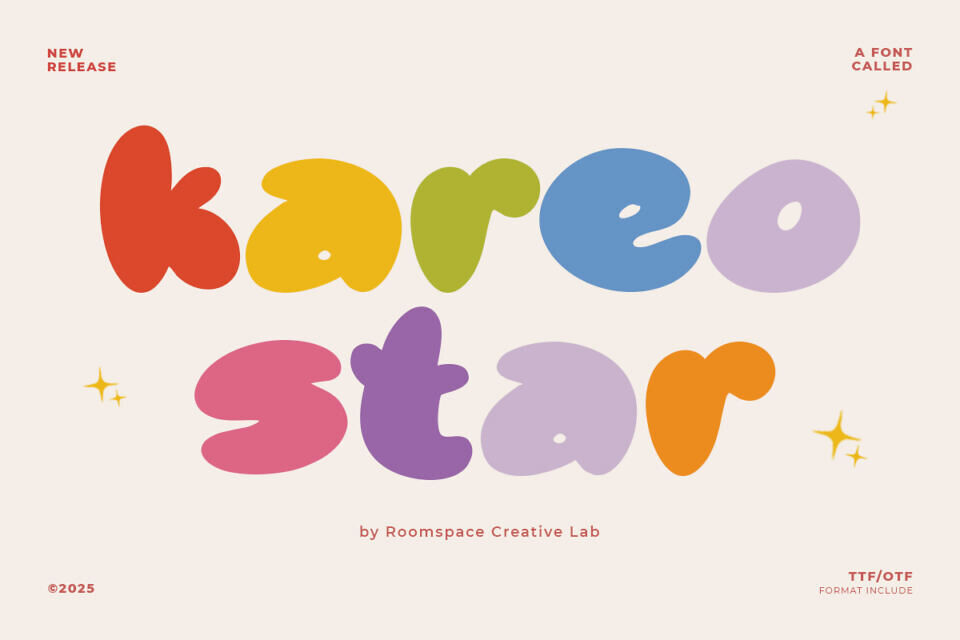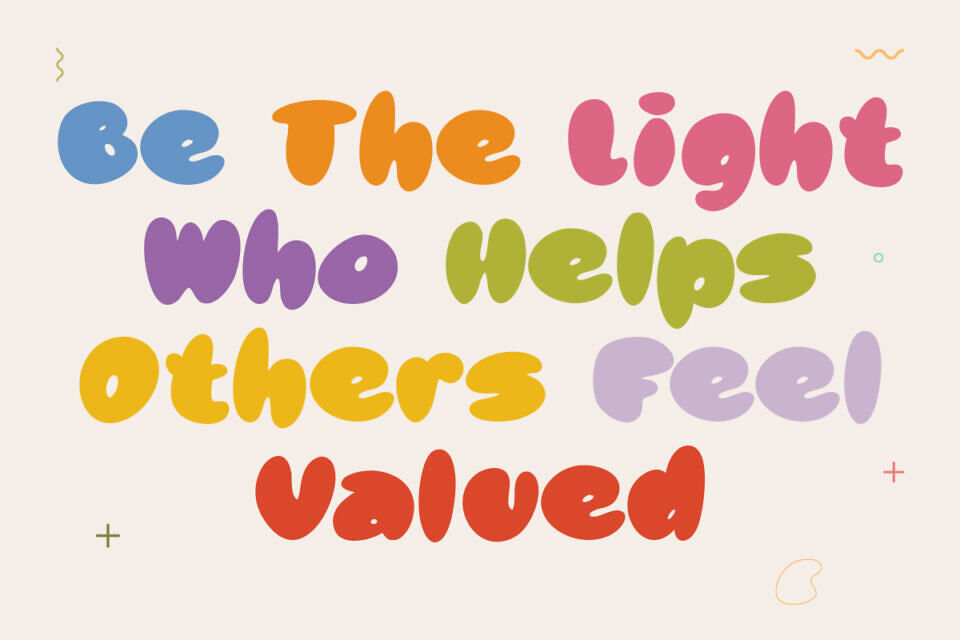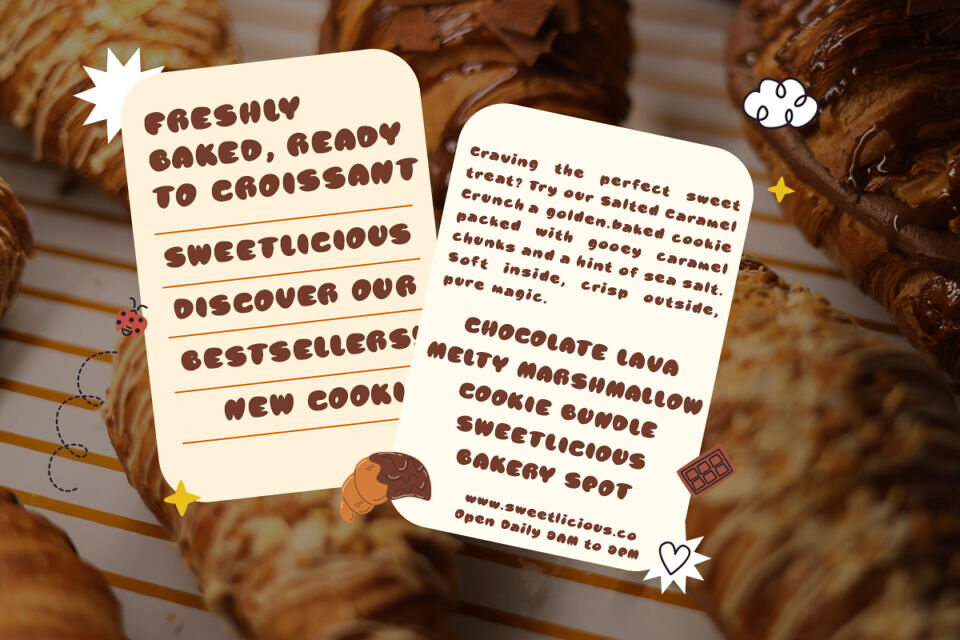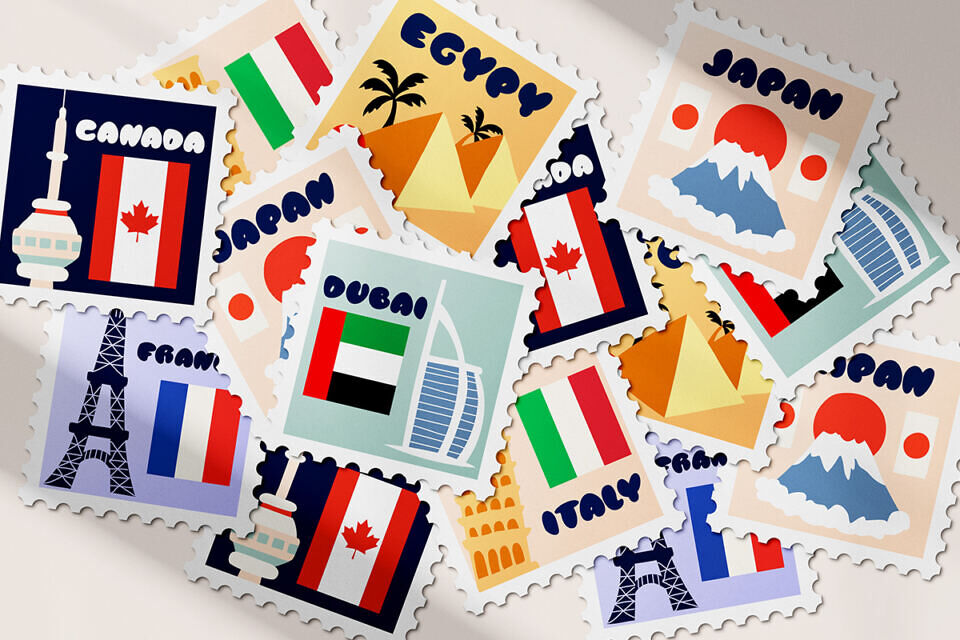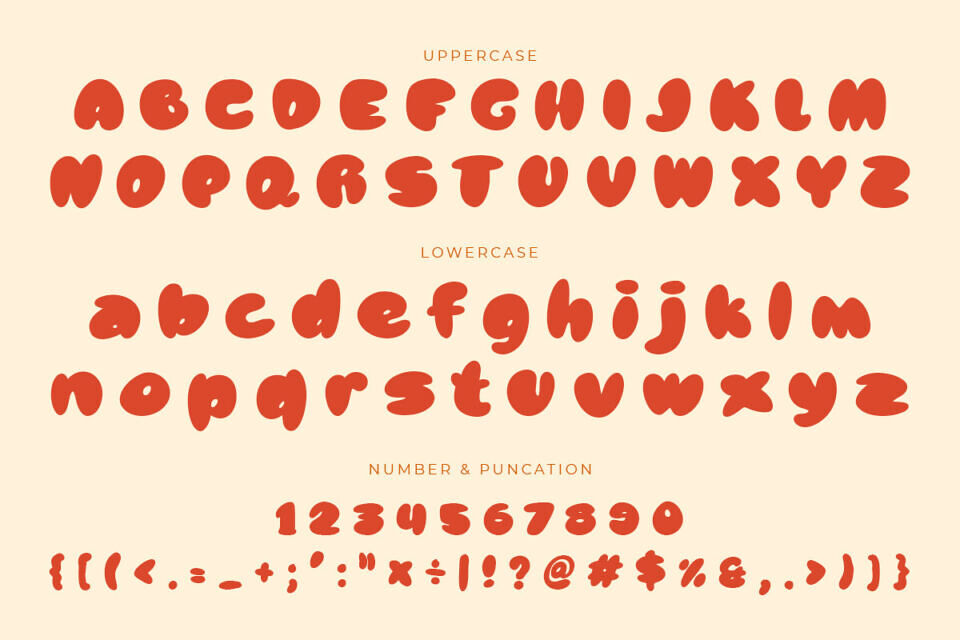
Kareo Star is a fun bubbly display font that radiates color, positivity, and playfulness. Designed with soft, rounded shapes and vibrant tones, this typeface instantly brings joy and warmth to any project. Its quirky letterforms make it ideal for creative designs that aim to be friendly, approachable, and full of character.
Perfect for children’s products, social media graphics, and playful branding, Kareo Star adds a touch of whimsy and imagination. From logos and posters to packaging and digital content, Kareo Star captures the spirit of youthful creativity. Whether you’re designing for kids, lifestyle brands, or cheerful campaigns, this font will turn your words into a celebration of color and happiness.